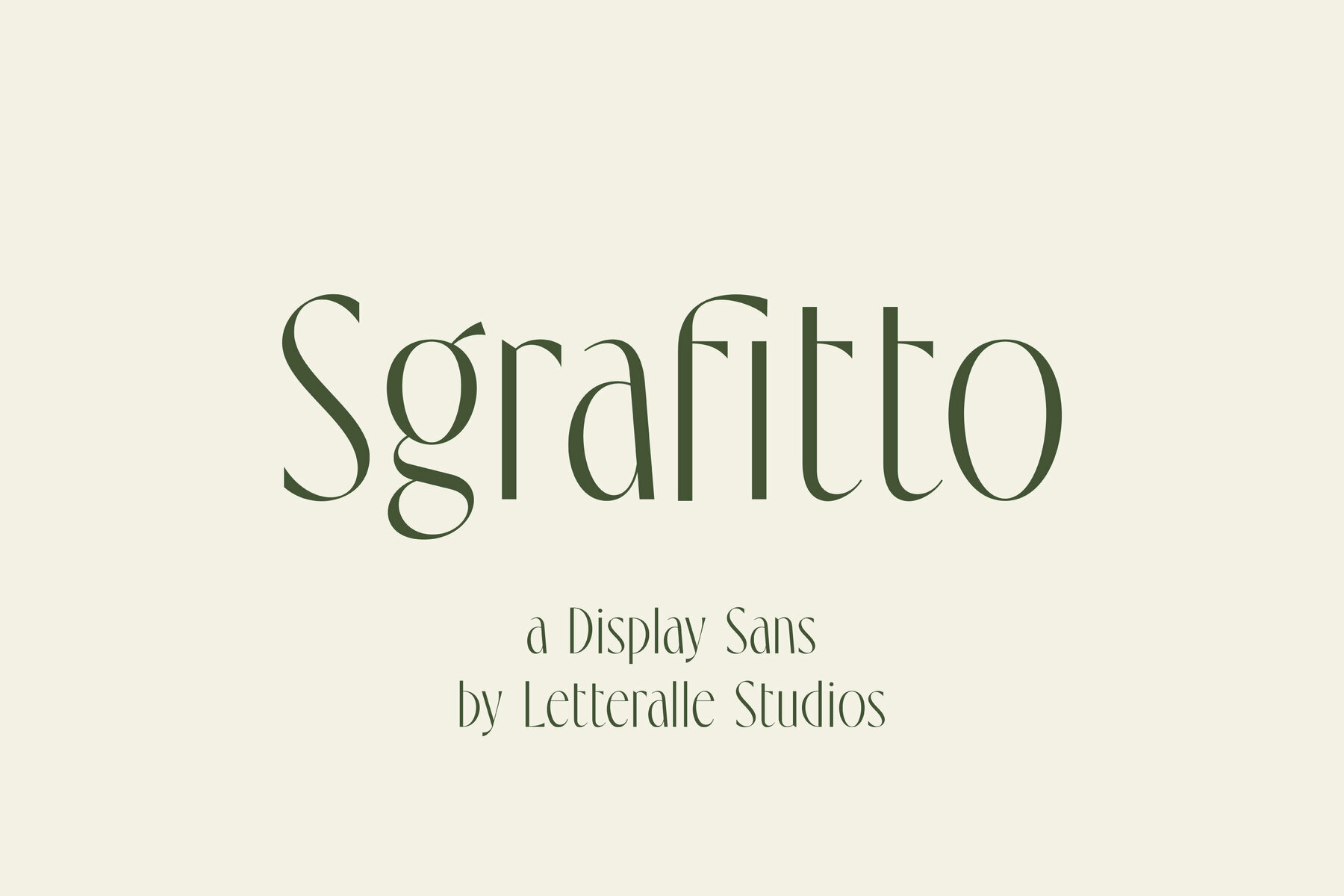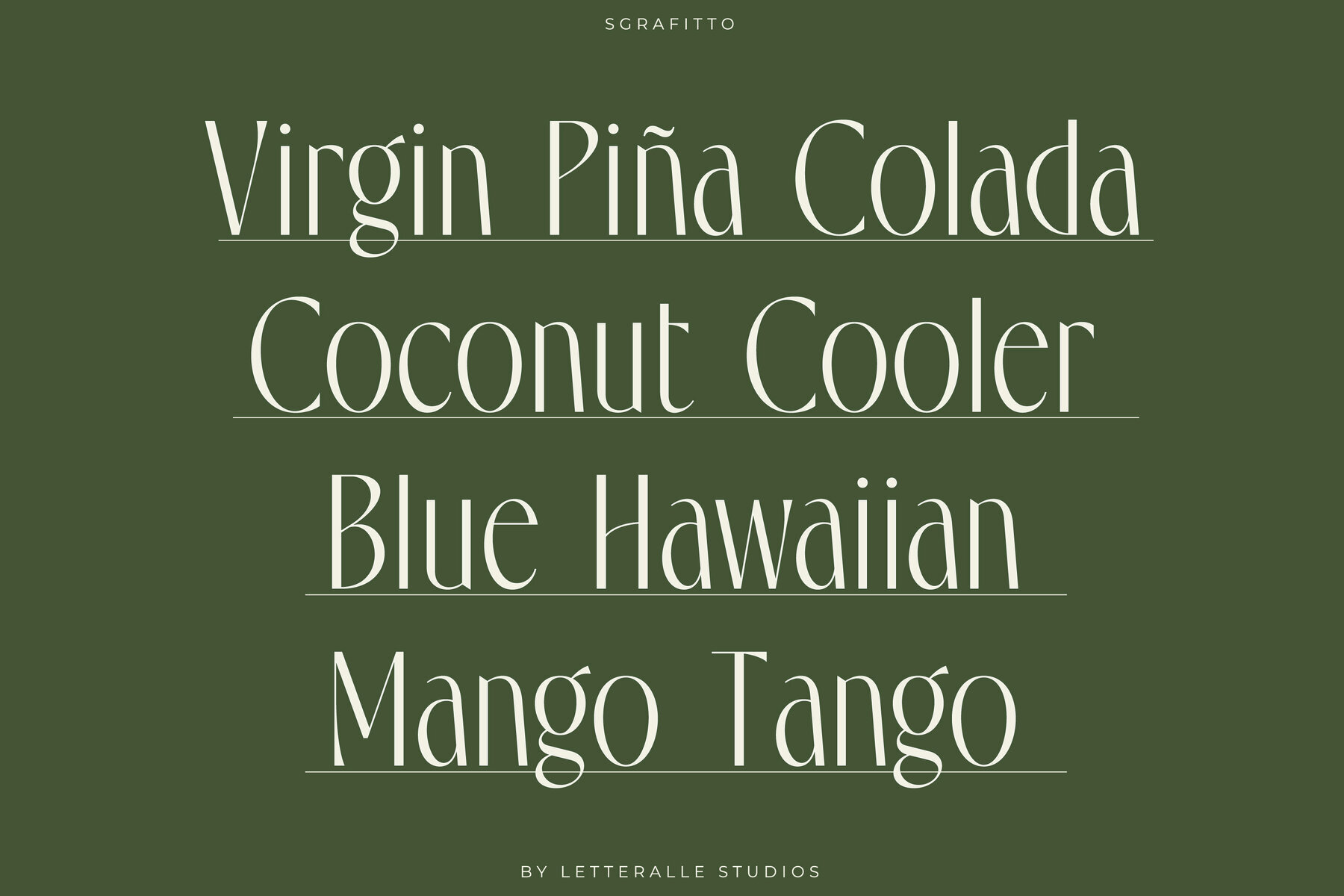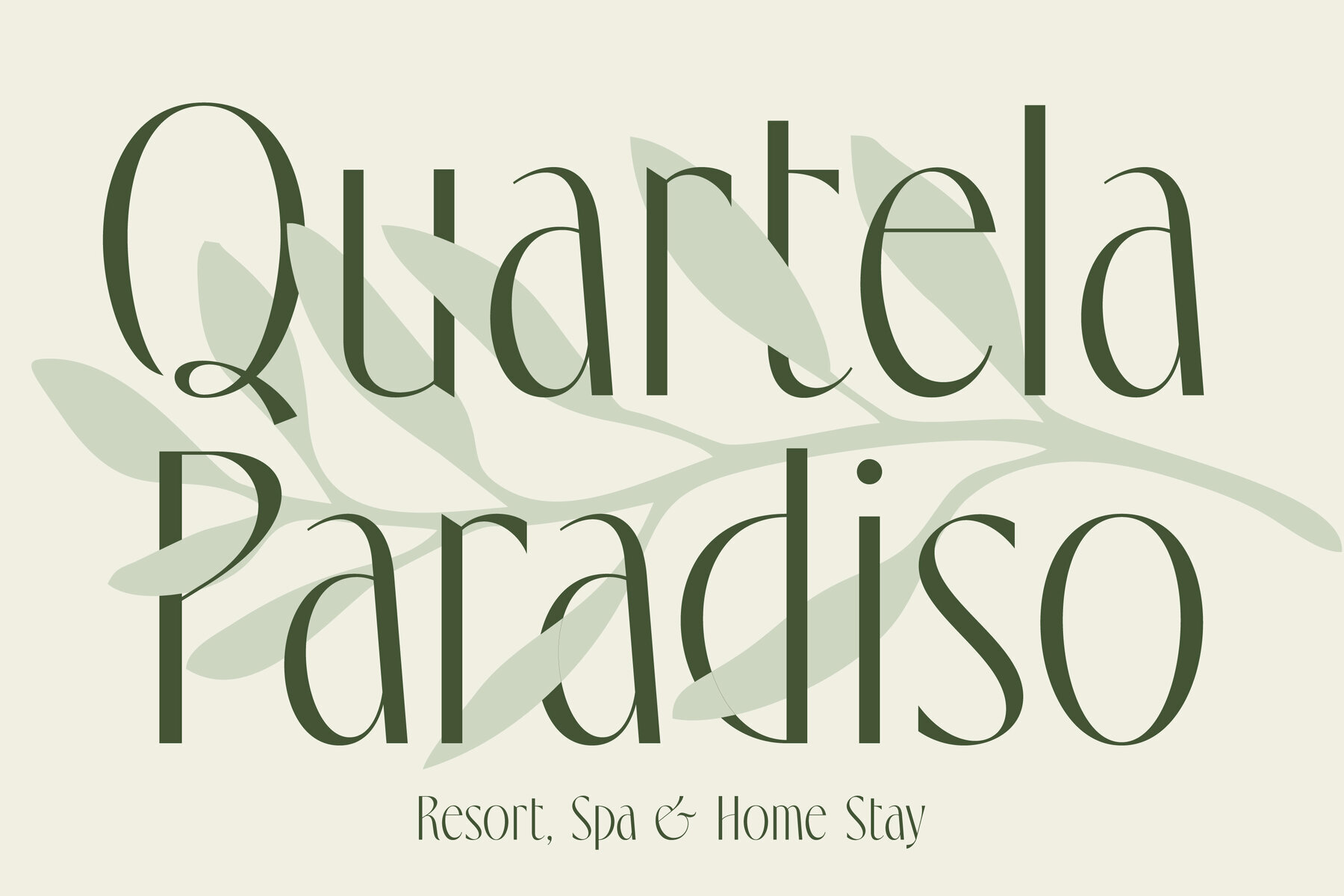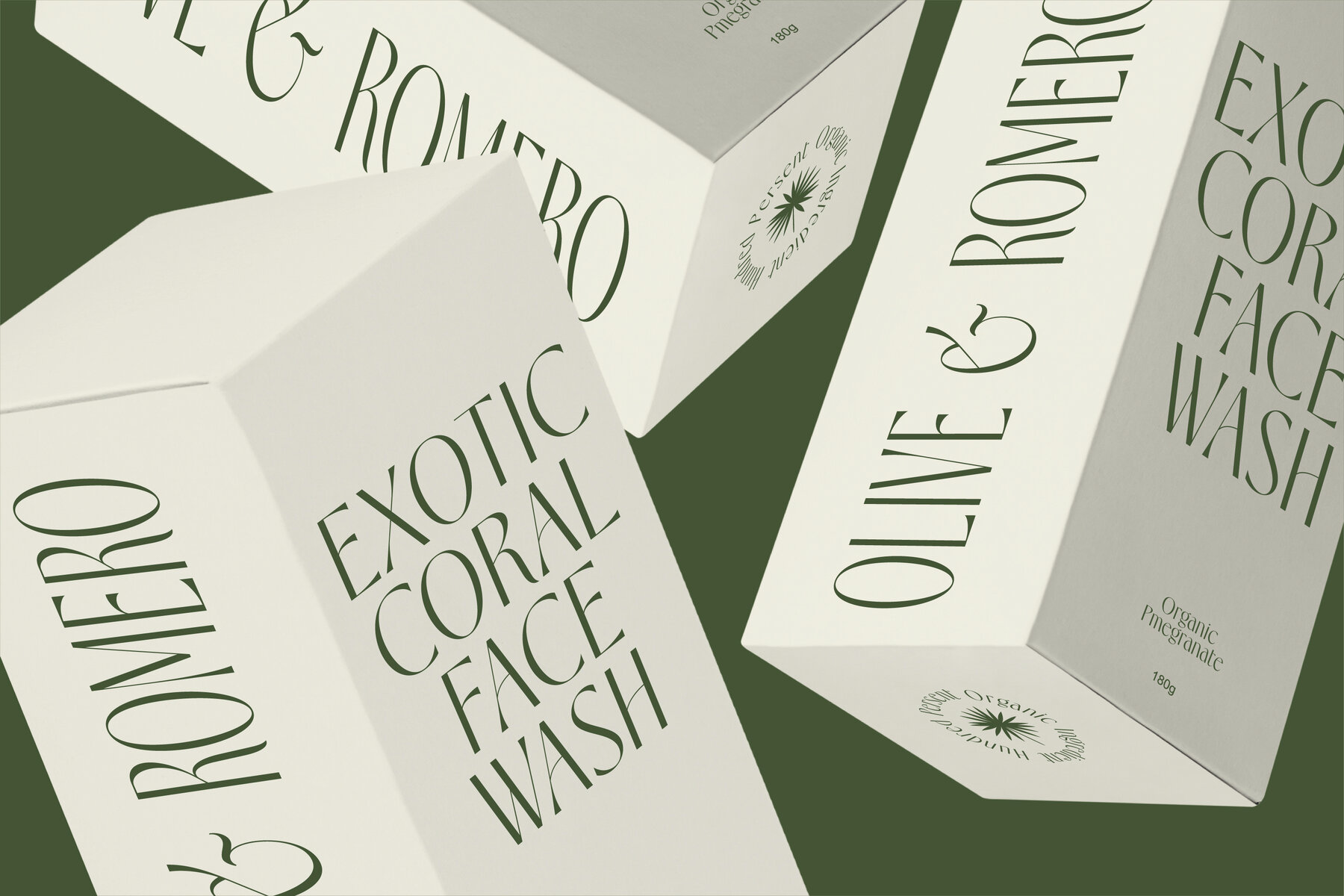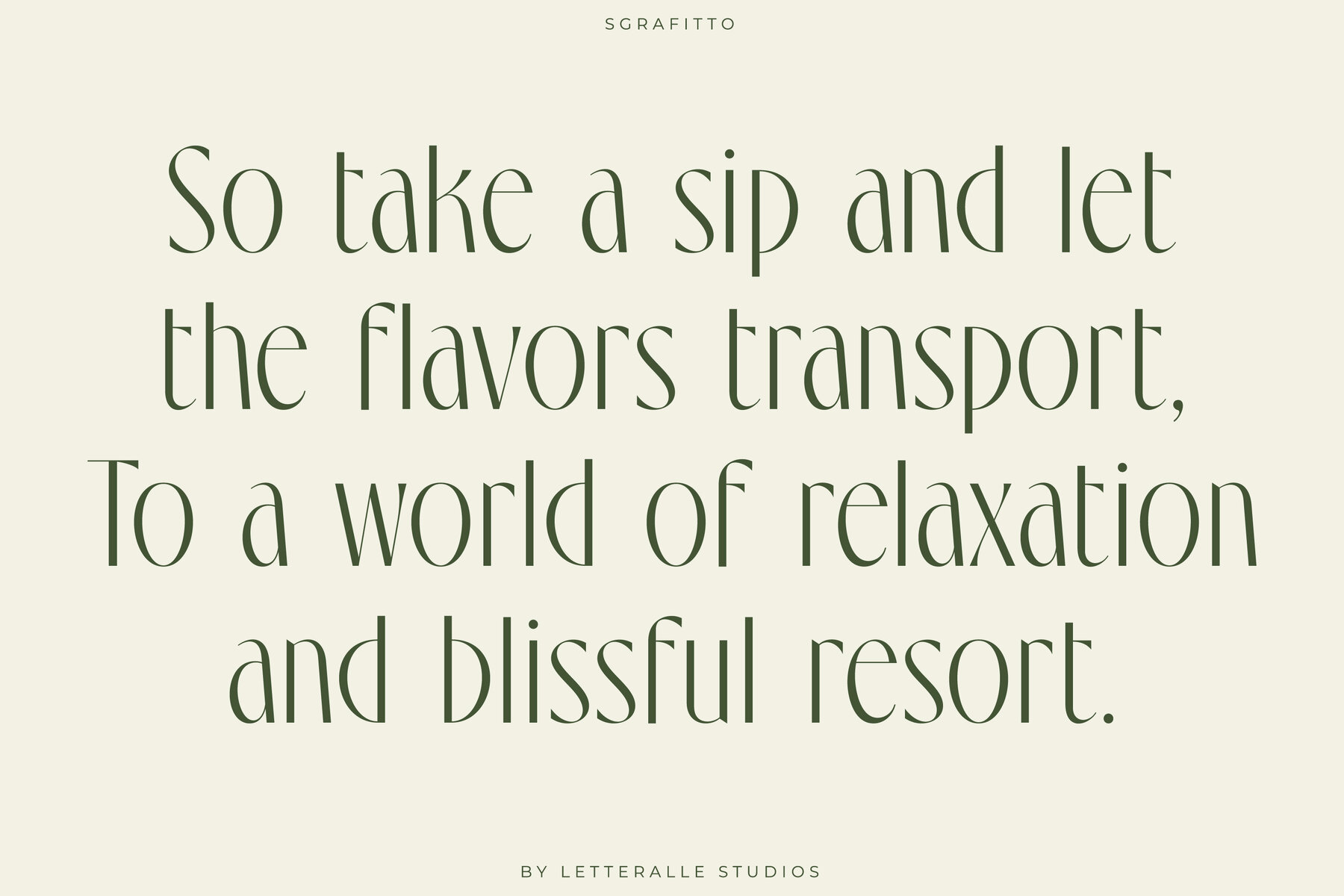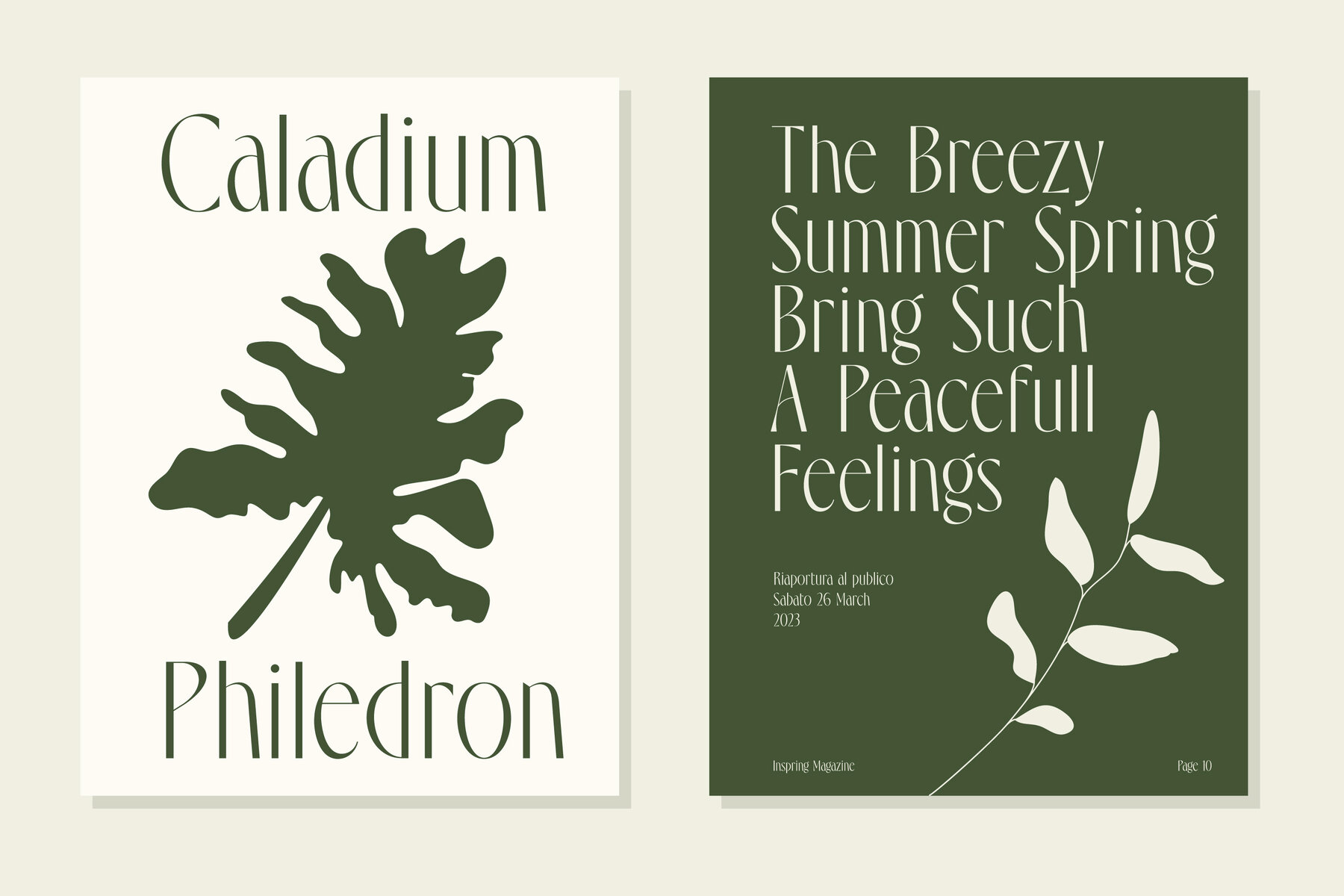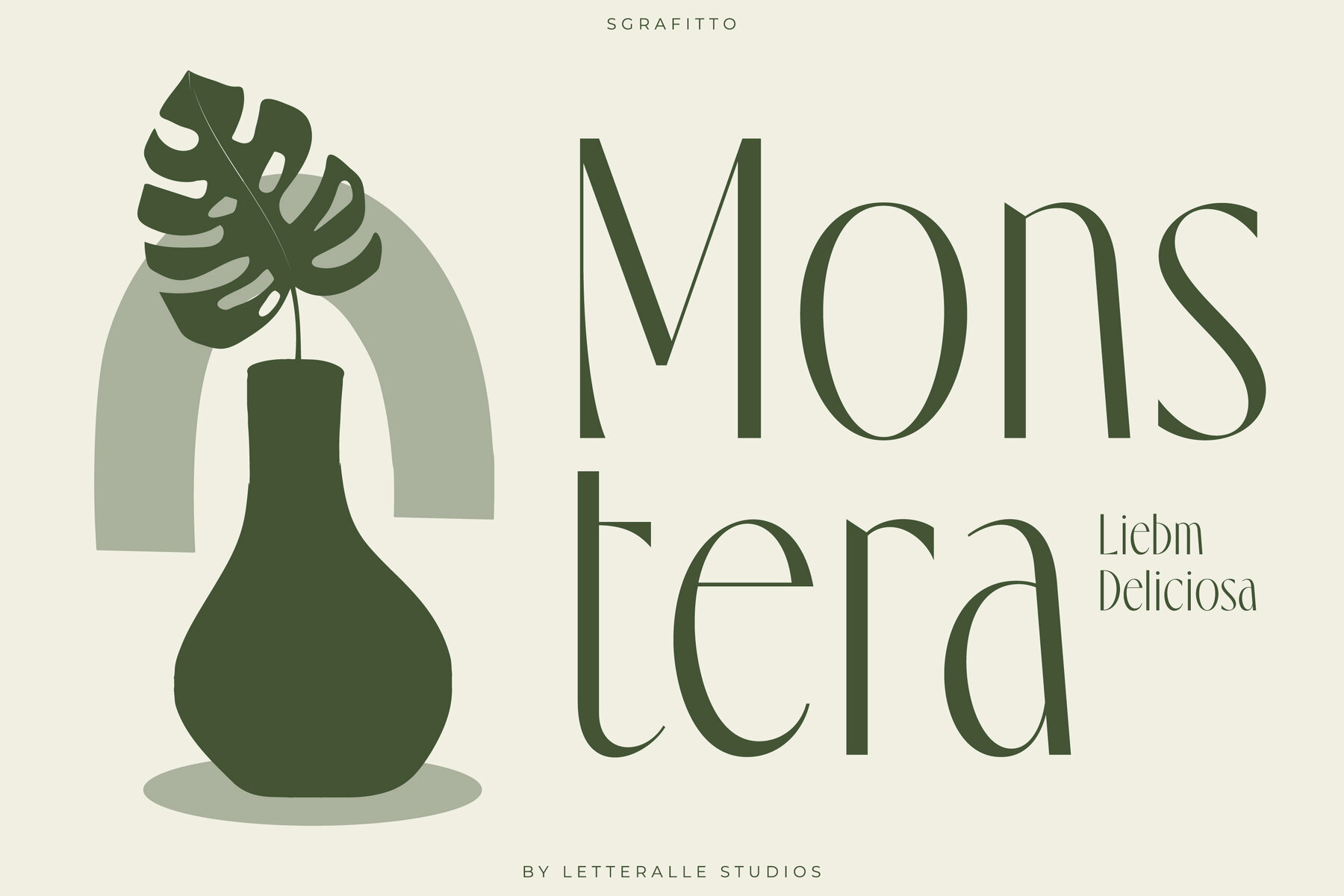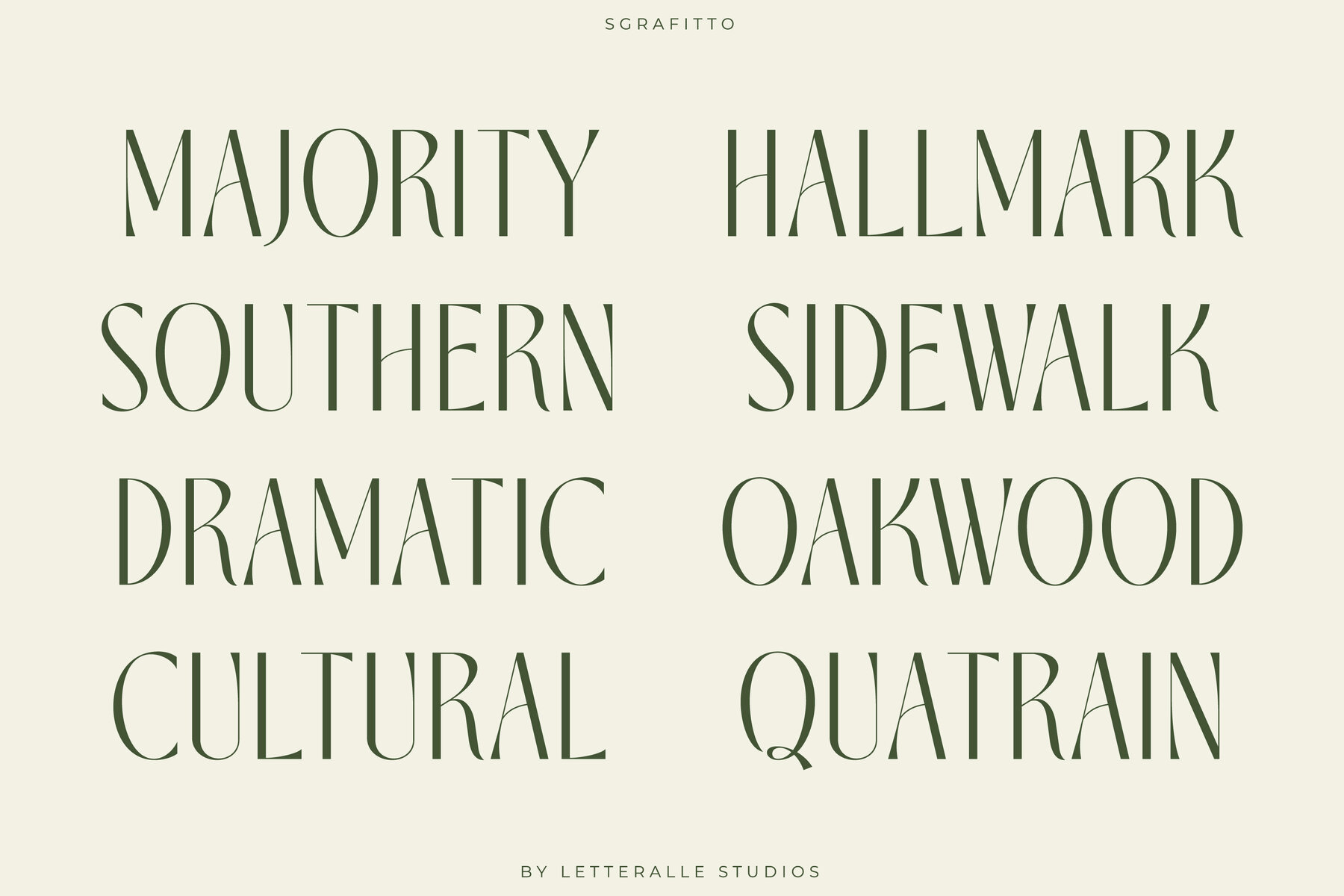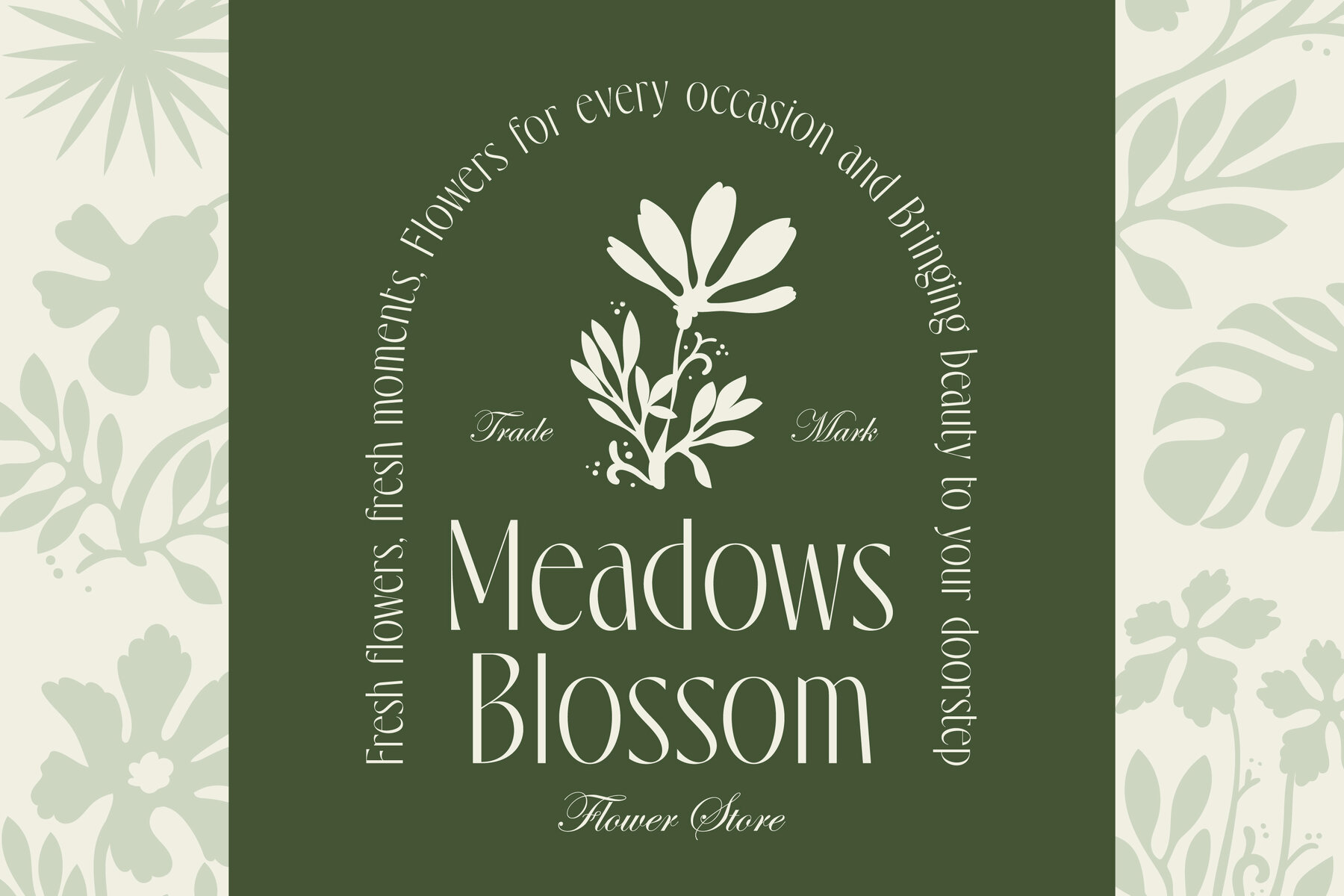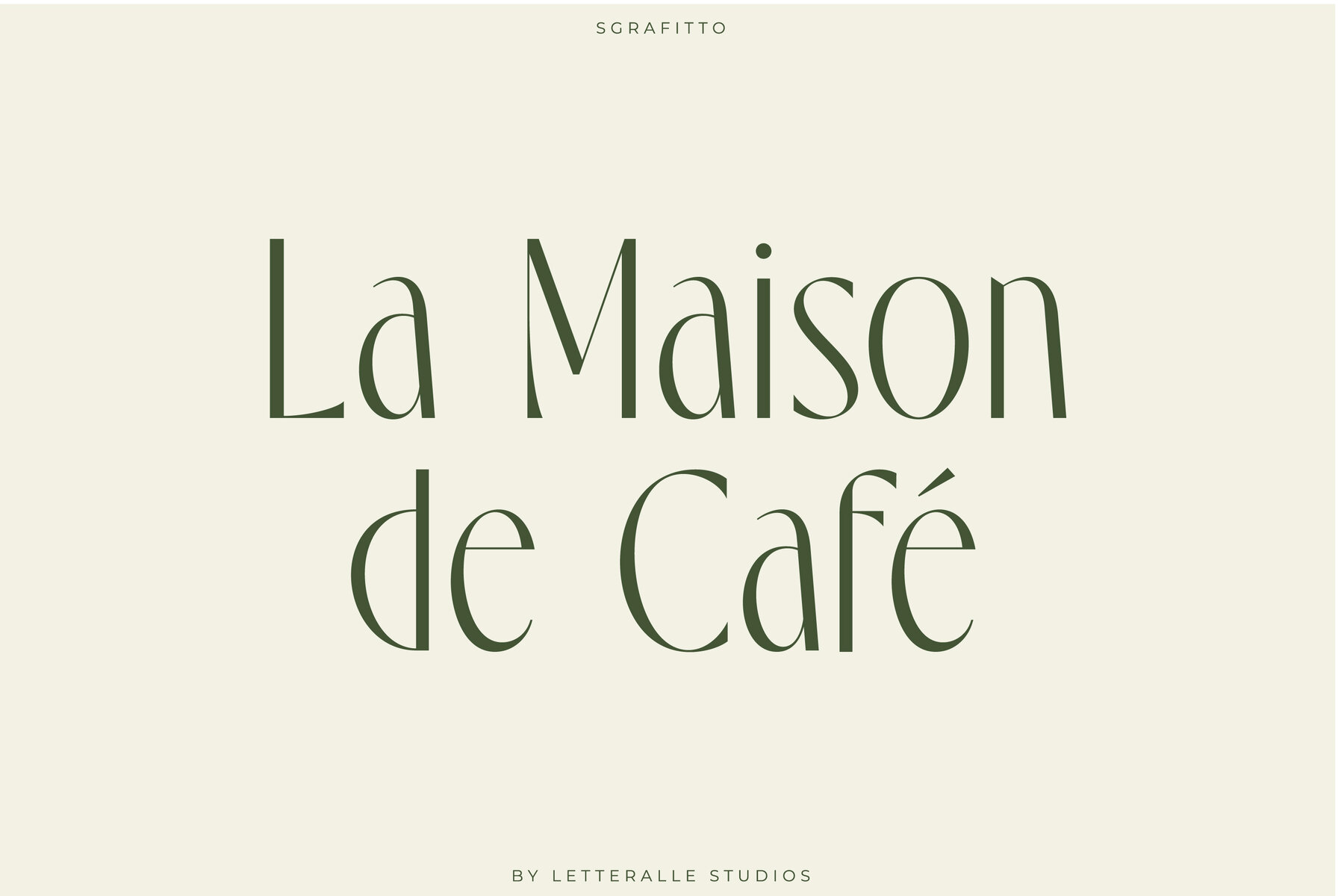
Sgrafitto Font
Sgrafitto Regular
Introducing Sgrafitto! a luxurious tropical-inspired typeface designed to elevate your branding game. With clean curves and a sleek appearance, this font is the perfect choice for brands looking to make a statement. Crafted with attention to detail, this font exudes sophistication and elegance. Its tropical influence gives it a unique flair that will make your brand stand out from the competition. Whether you're creating a logo or designing marketing materials, this font is sure to leave a lasting impression on your audience. The sleek lines and minimalist design of this font make it incredibly versatile. It can be used for a variety of purposes, from high-end fashion brands to luxury resorts. Its clean curves ensure that it's easy to read at any size, making it perfect for both print and digital media. Elevate your branding with Sgrafitto. It's the perfect choice for any brand looking to make a bold statement and leave a lasting impression. Get your hands on it today and start creating designs that are sure to turn heads.